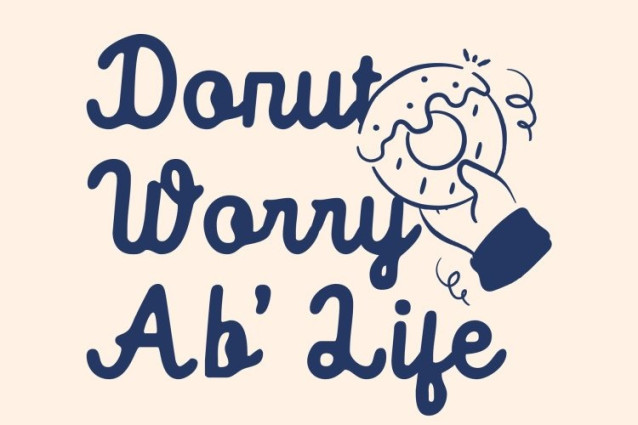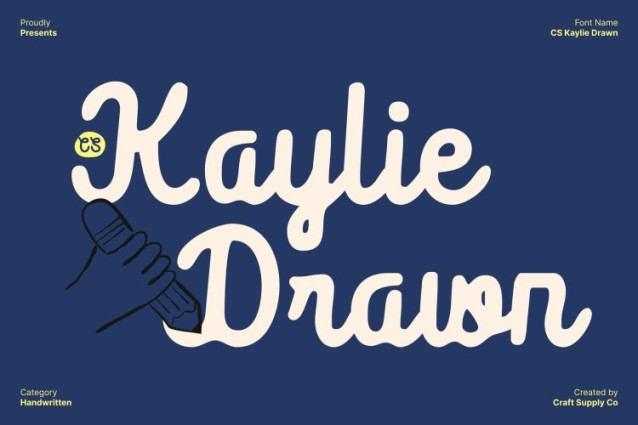
CS Kaylie Drawn Font
CS Kaylie Drawn Font This is a modern script font that brings the warmth of natural handwriting into refined visual harmony. Its smooth, flowing strokes and gentle curves express beauty, softness, and femininity. The drawn effect adds subtle handcrafted nuances, giving each letter emotional depth and a personal, graceful presence.
A Perfect Balance of Elegance and Personality
Blending modern calligraphy with a handwritten touch, offers a sophisticated yet approachable script style. Its balanced rhythm and soft lines create a romantic atmosphere while maintaining clarity, making it suitable for both expressive and professional design needs.
Designed for Emotional and Visual Appeal
This font enhances designs with warmth and heartfelt elegance. It’s perfect for beauty branding, wedding stationery, lifestyle content, editorial layouts, and personal projects that seek to connect emotionally with their audience while maintaining a polished look.
Captivating and Contemporary Script Style
Rooted in classic script traditions yet refined for modern use, this font feels fresh, timeless, and expressive. Designed for creatives who value authenticity and charm, it delivers a delicate handwritten style that leaves a lasting, graceful impression across any visual application.